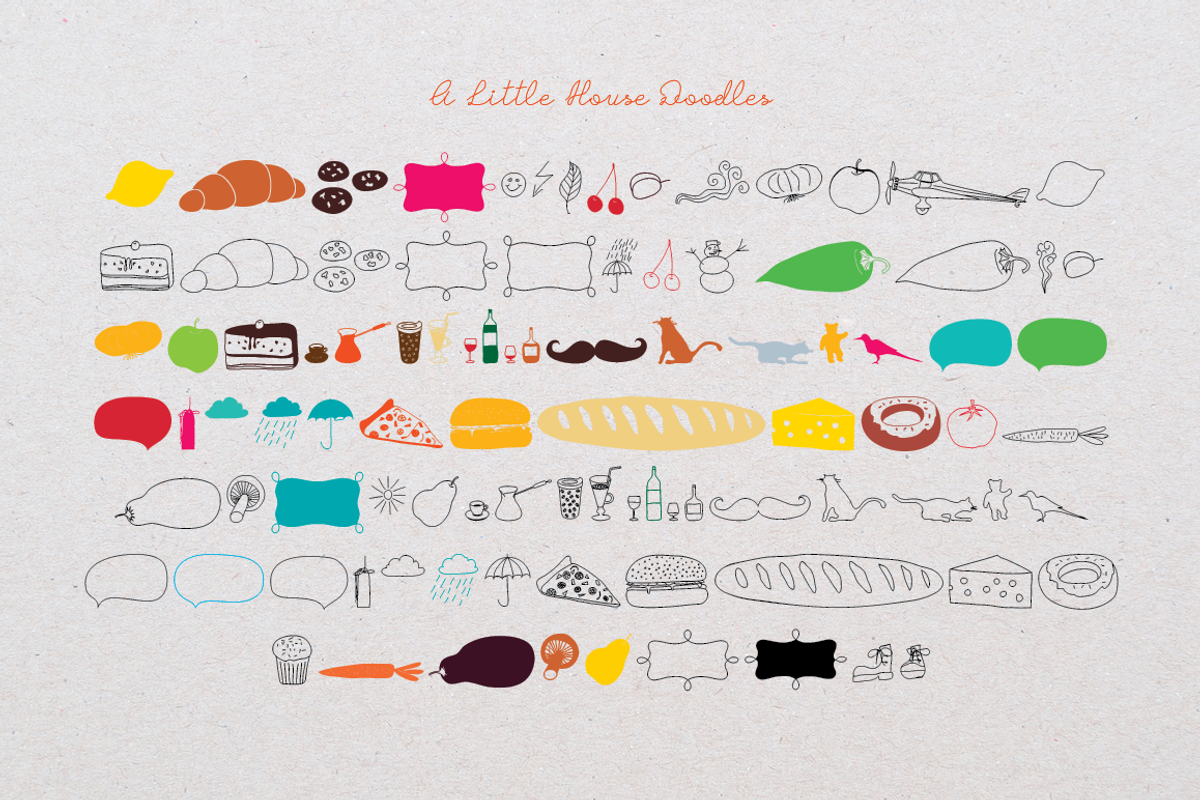
A Little House
A Little House is a handwritten connected script font with a playful and even slightly childish forms and a lot of doodles, perfect for book design, decoration, invitations, logos, greeting cards, branding, print ads, quotes, magazines, packaging, headers and more.
It contains Latin and Cyrillic upper and lowercase characters, numerals and a large range of punctuation, allowing multiple language support. Features 820 glyphs and glyph forms.
The font is composed of Regular and Doodles variants.